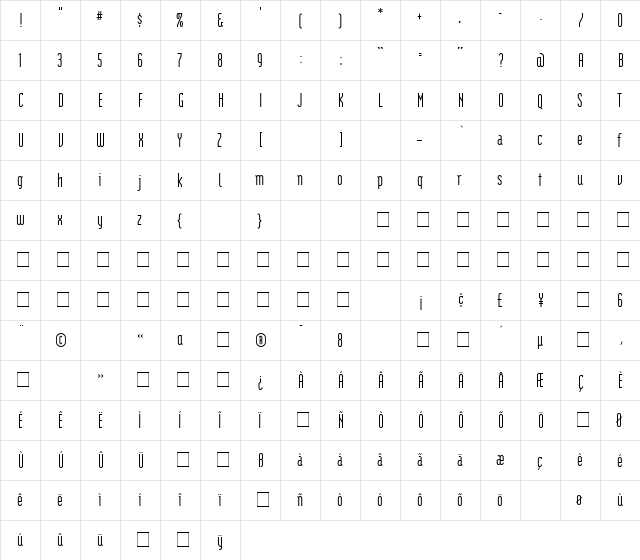
Modula Medium Font Preview
Modula Medium
Modula Medium Font Details
Design Context for Modula Typeface
Modula offers clean, dependable letterforms without strong stylistic allegiance, making it a practical choice for designers who need flexibility.